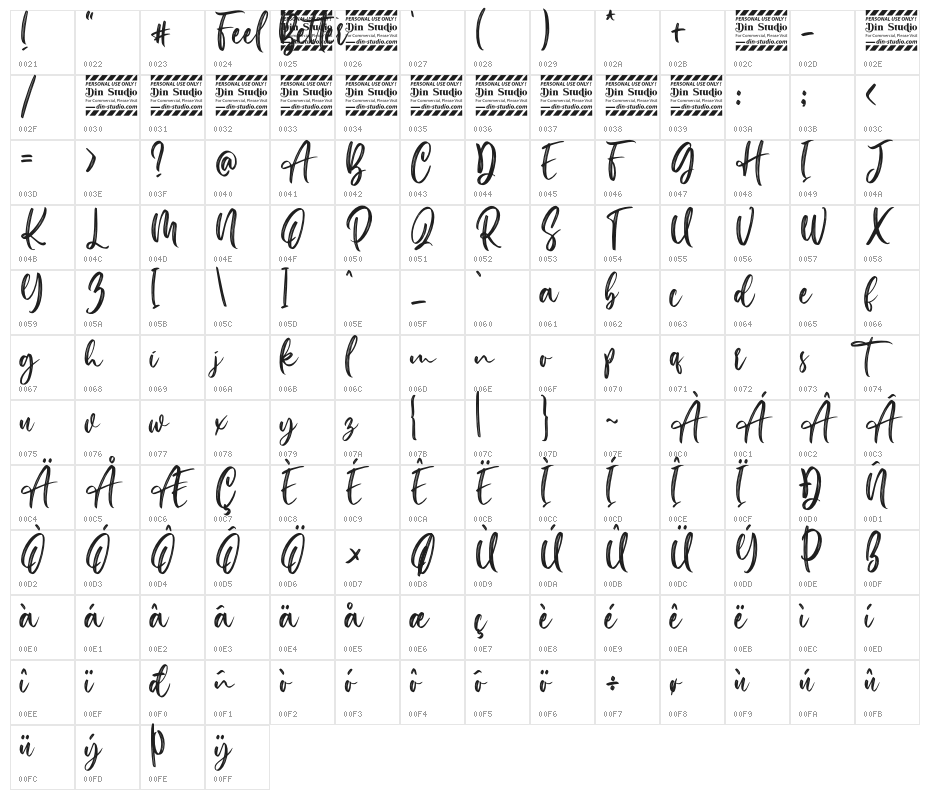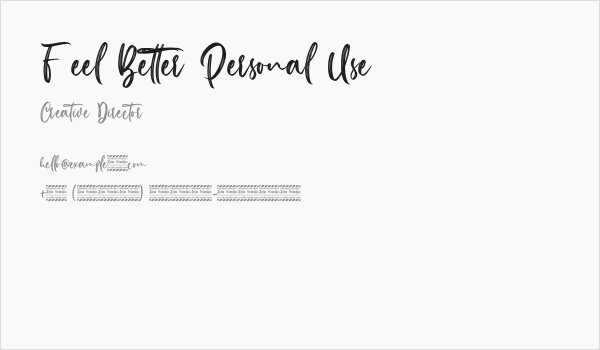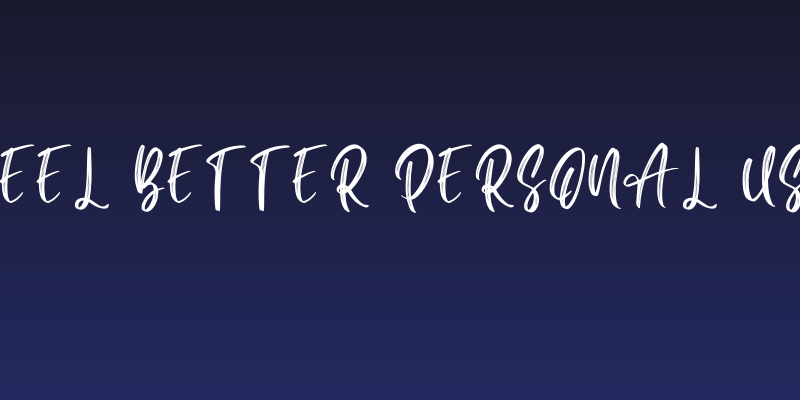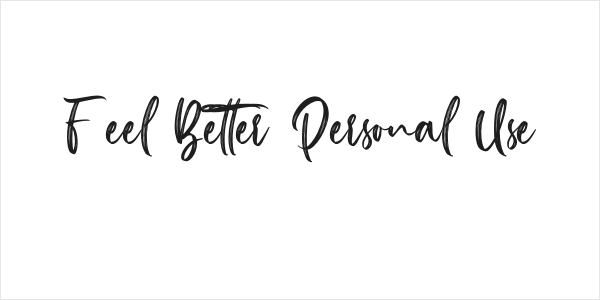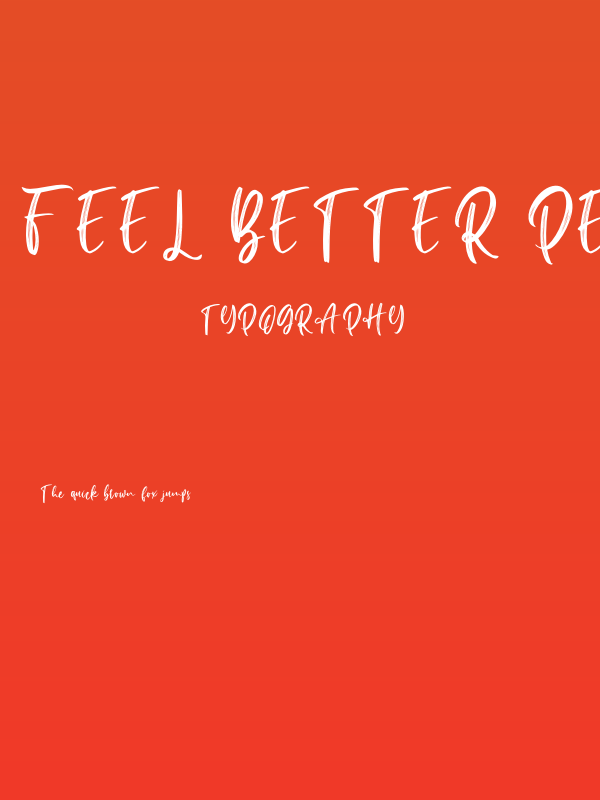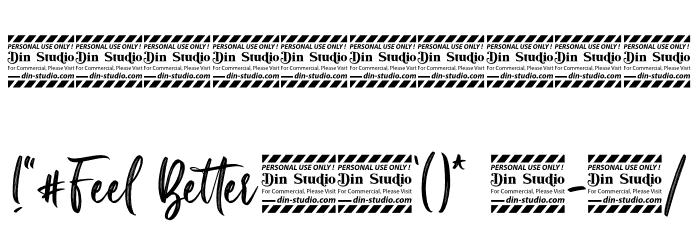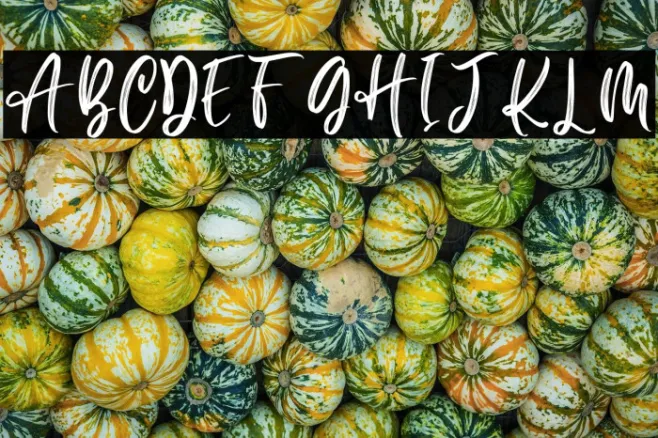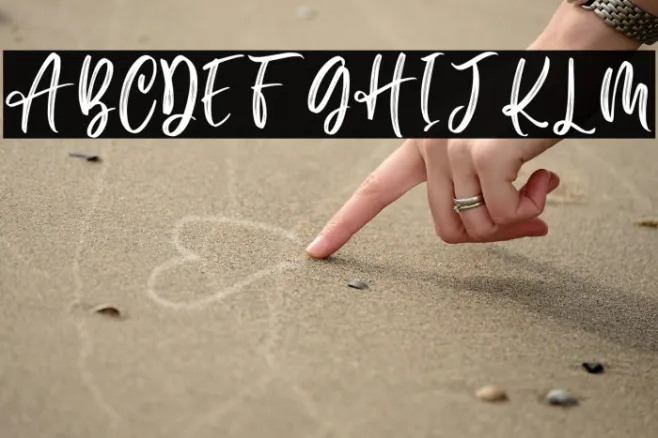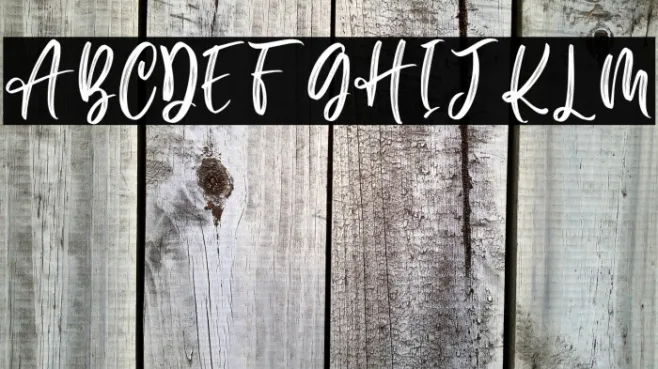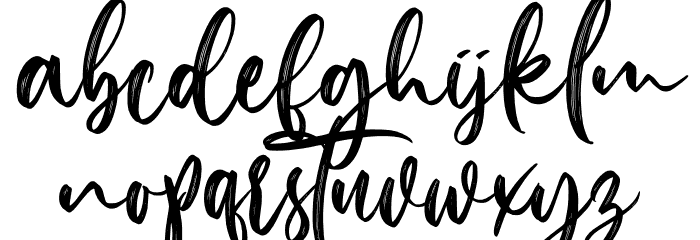
Feel Better Personal Use Font
Feel Better Personal Use Description
This font features a lively and expressive handwritten style, characterized by its fluid and dynamic strokes. The uppercase letters are bold and slightly slanted, adding a sense of motion and energy. The lowercase letters are more varied in height, with some characters extending below the baseline, enhancing the playful and informal feel. The strokes are thick and textured, giving the font a brush-like appearance. This font is ideal for projects that require a personal touch, such as greeting cards, invitations, or branding materials that aim to convey warmth and friendliness.
| Proposed Projects | Ideal for greeting cards, invitations, and branding materials that require a personal and friendly touch. |